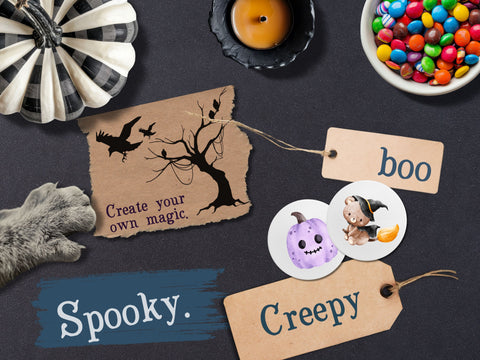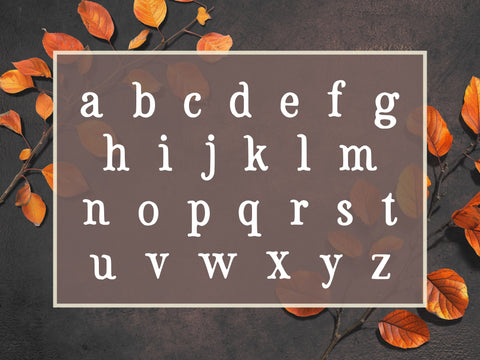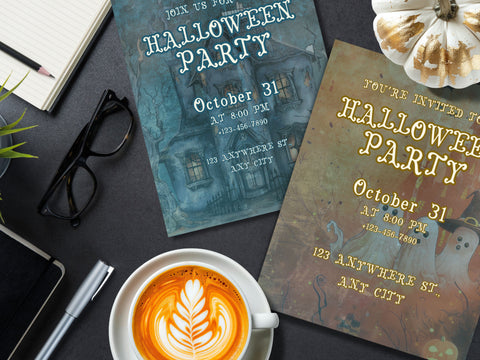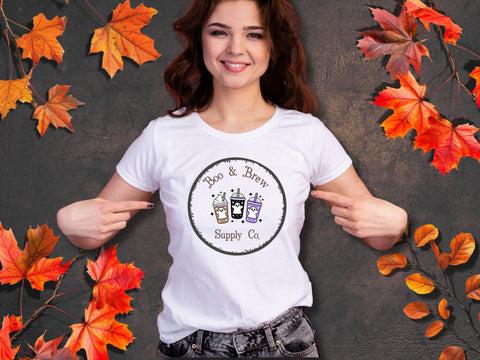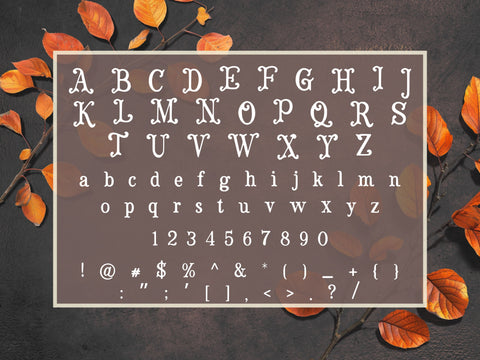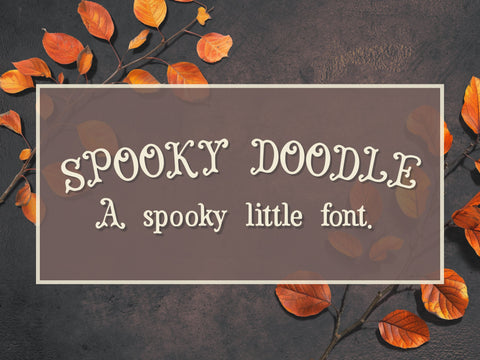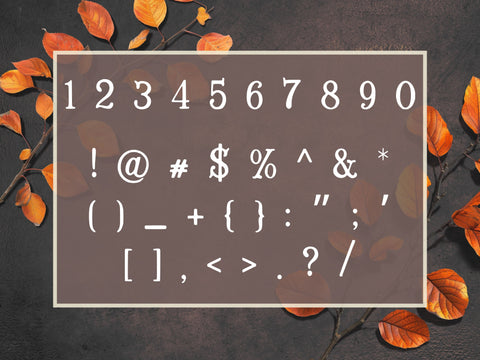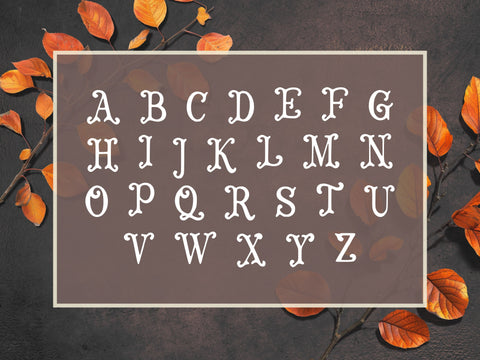
Spooky Doodle Halloween Serif Font
Spooky Doodle is a playful serif typeface with a dash of eerie charm—perfect for Halloween projects, spooky party invites, seasonal merchandise, and whimsical potion-shop signage. Its hand-drawn serifs and uneven curves give every letter a delightfully haunted personality that feels both cute and vintage.
Full uppercase and lowercase alphabet
Numbers and basic punctuation
Perfect for:
👻 Halloween shirts and mugs
🎃 Trick-or-treat bags and party decor
🕷️ Labels, stickers, and packaging
🧙 Spell-themed signs and SVG crafts
Whether you’re carving out a spooky design or adding a little mischief to your lettering, Spooky Doodle brings just the right mix of creepy and cute.